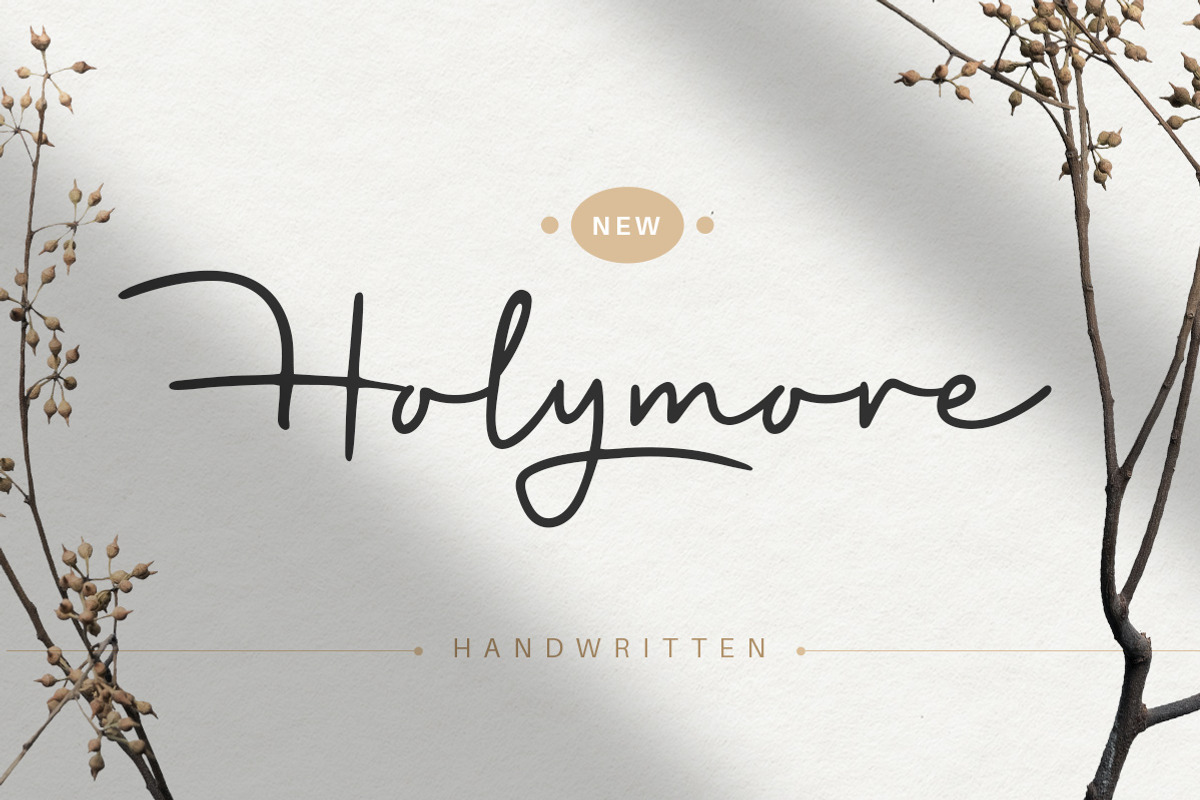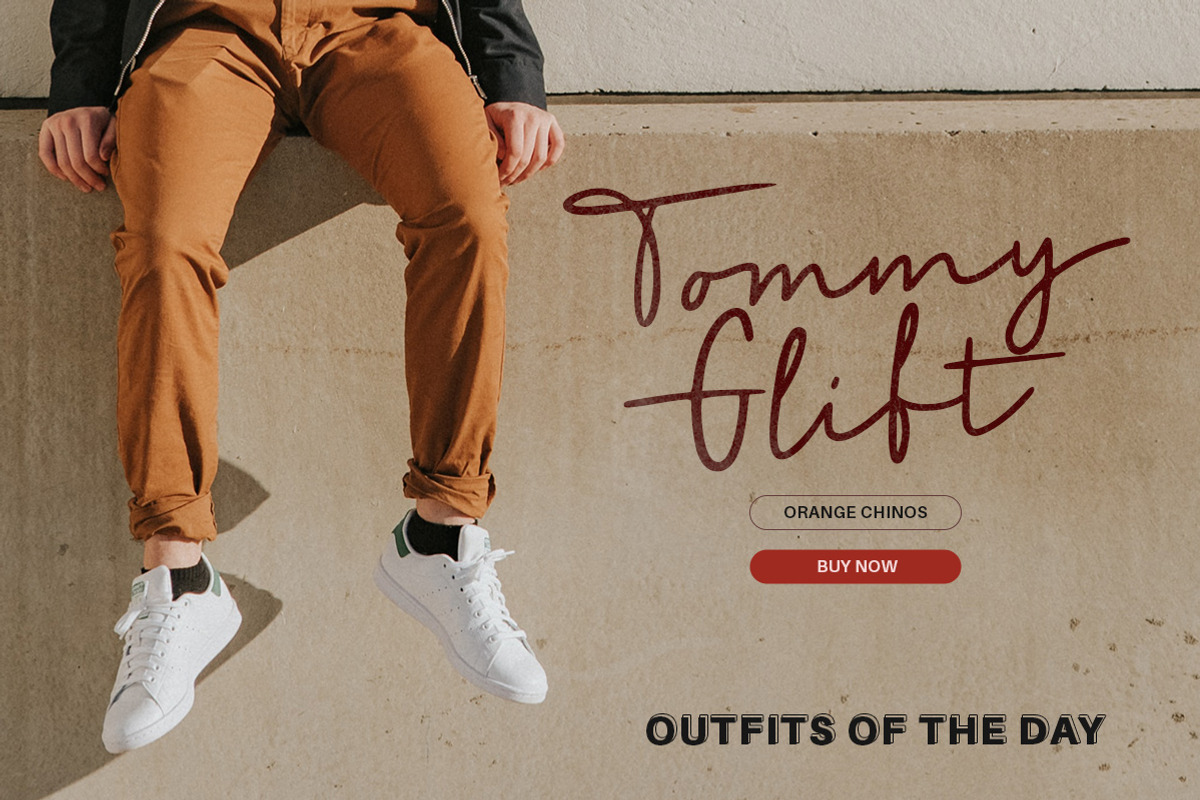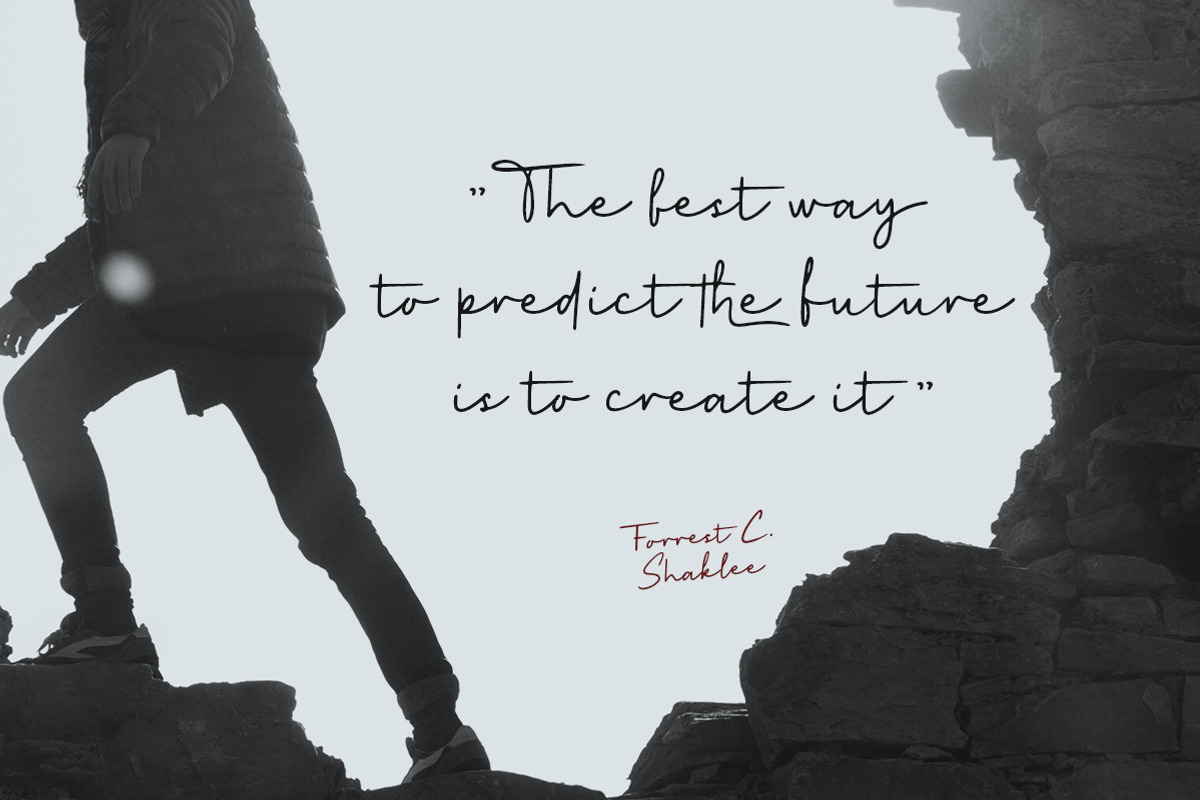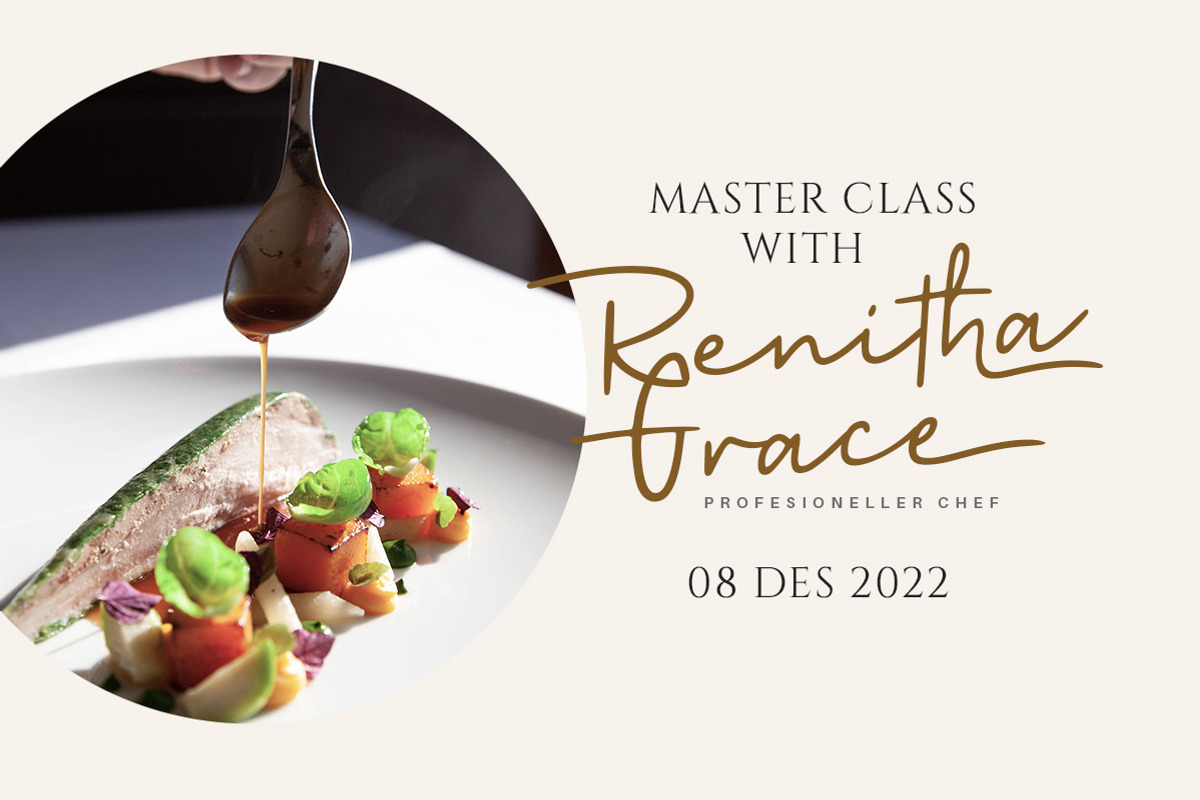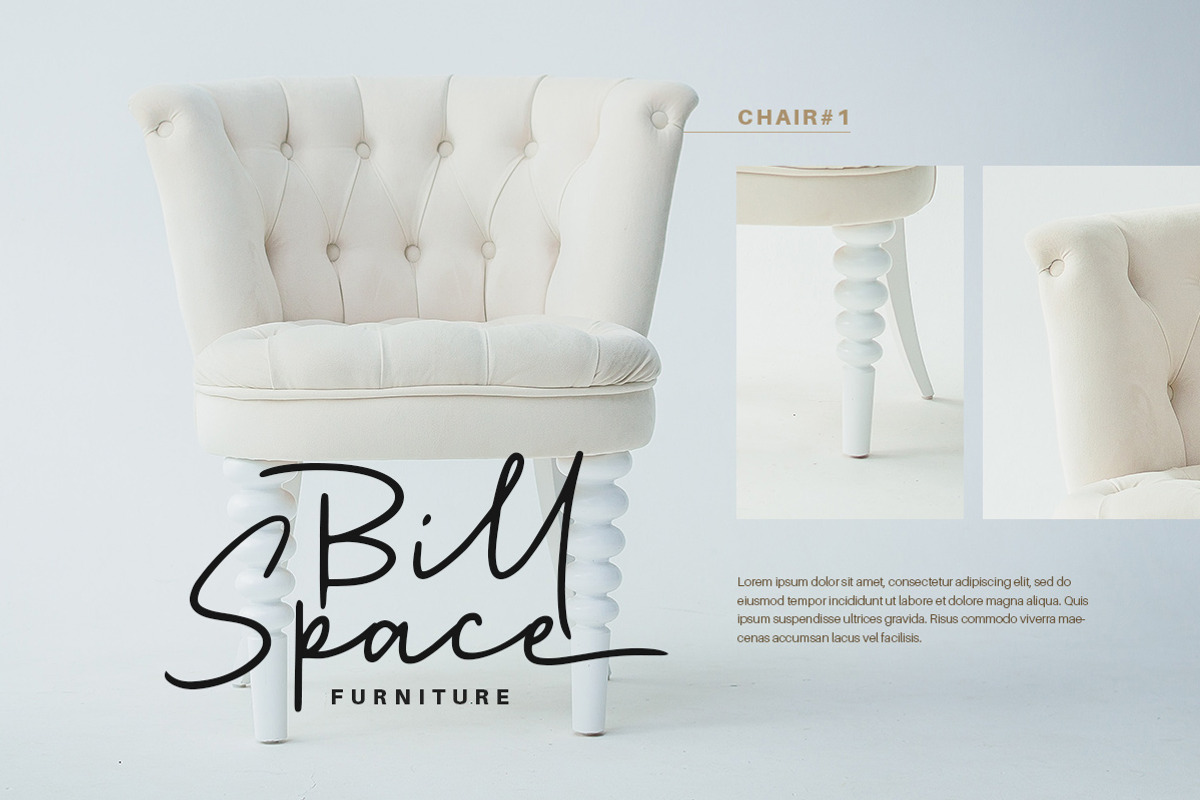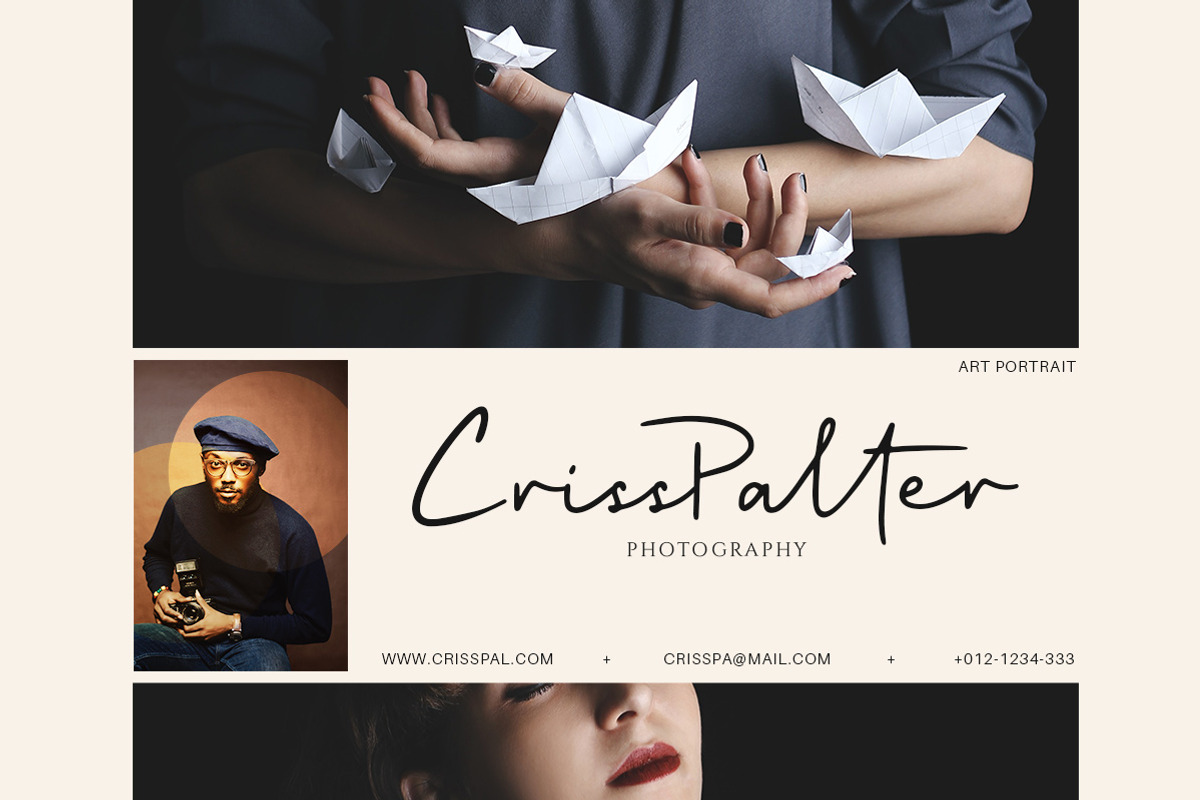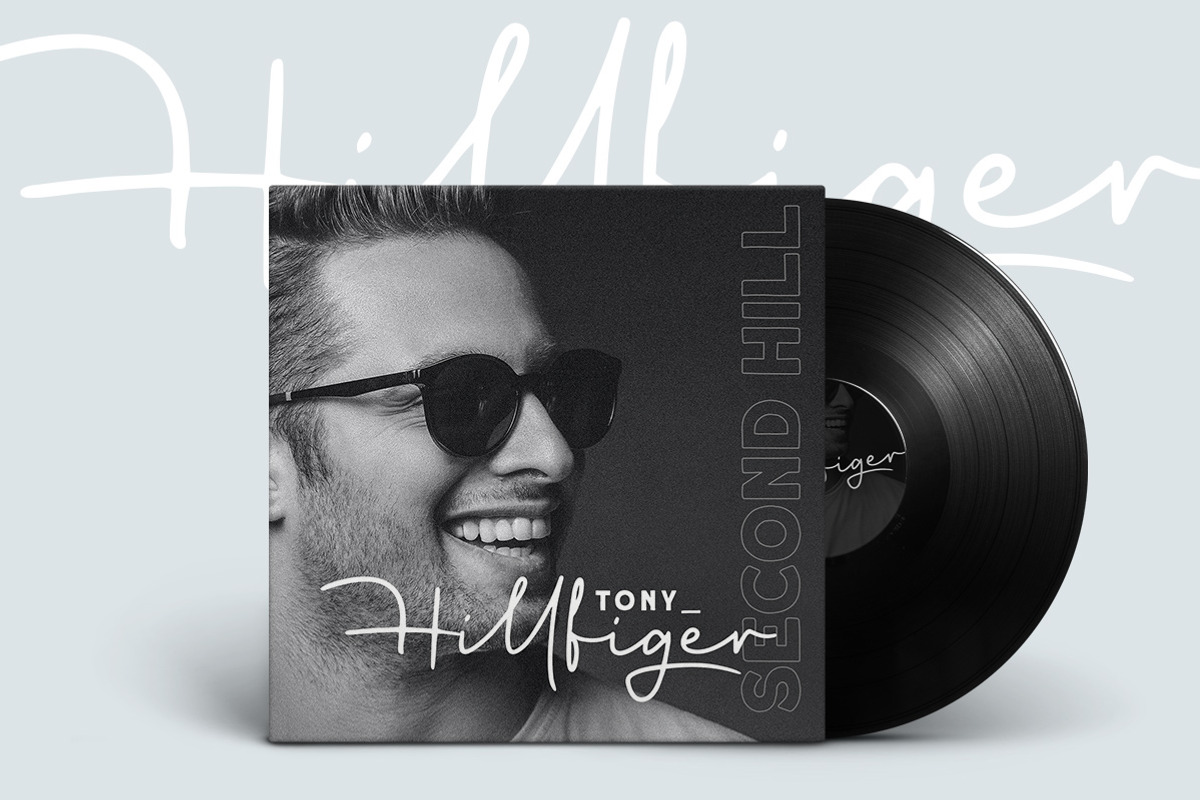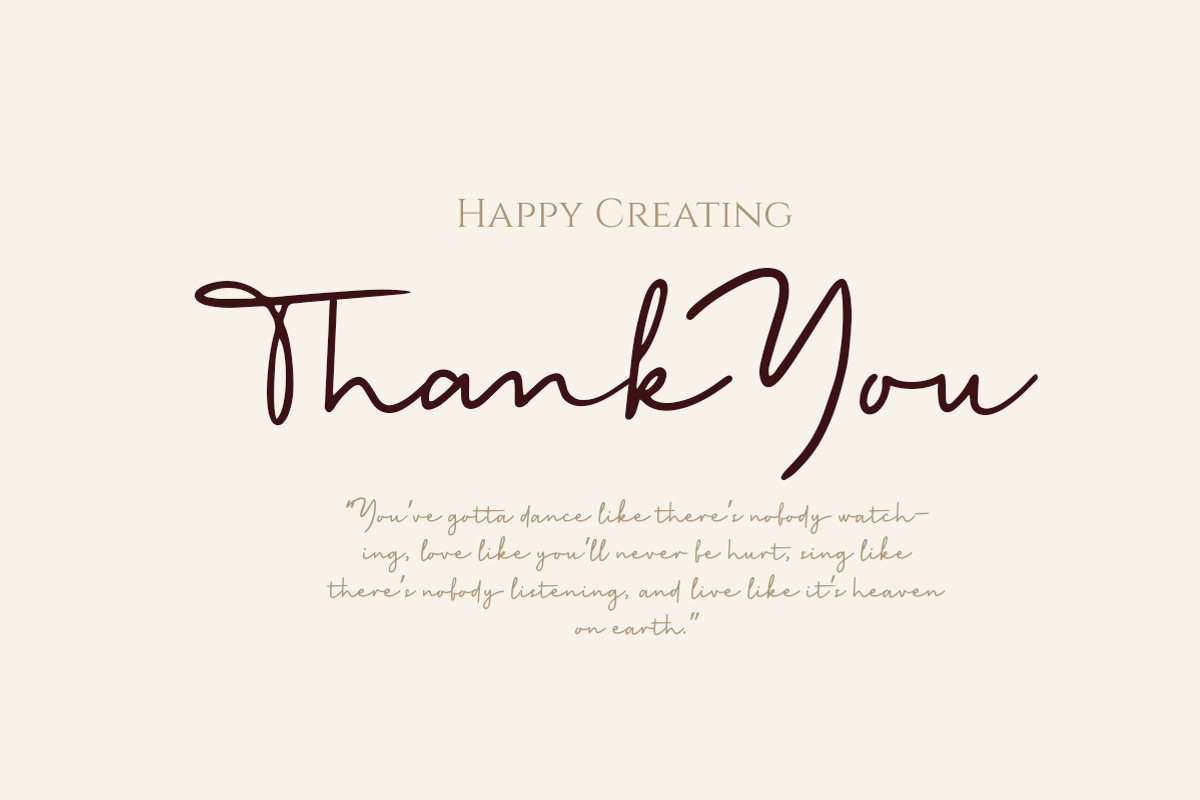
Holymore - Handwritten font
Introducing, Holymore! a handwritten font that will bring your design into a natural looking with its handwritten touch. this font is perfect for branding, packaging, logotype, headline, wedding invitation, etc.
- alternates and ligatures